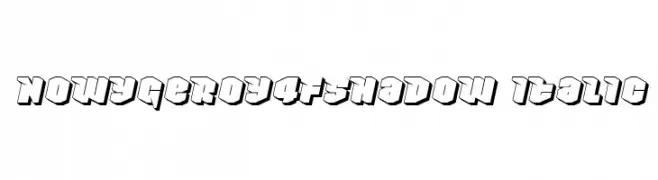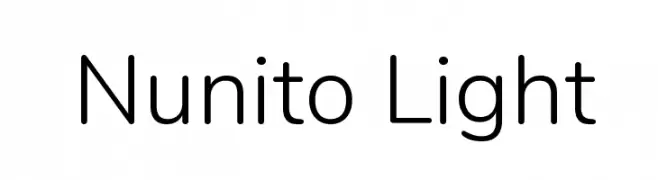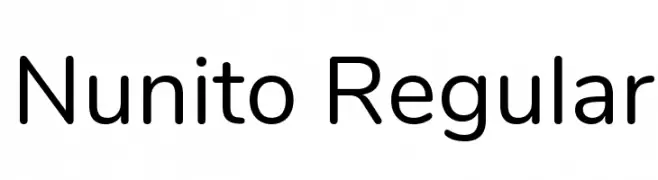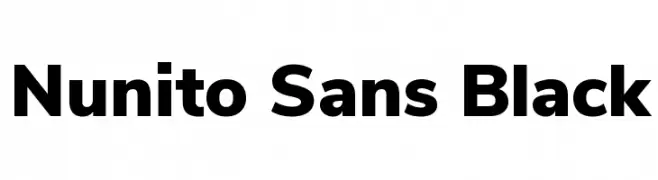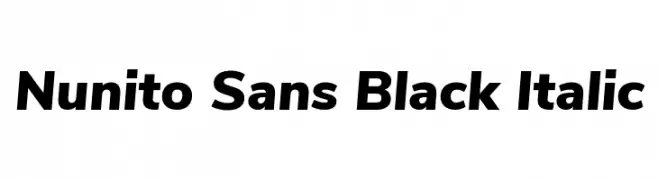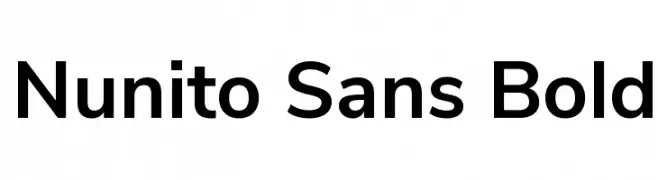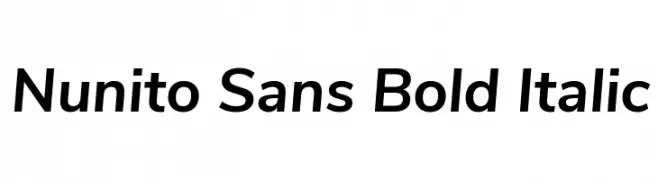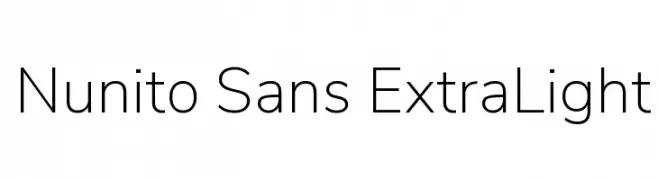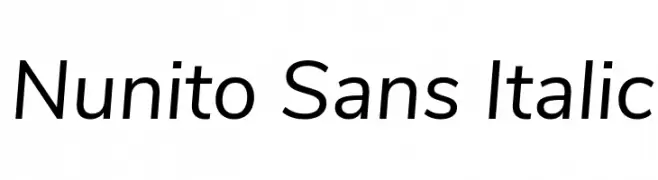
A decorative font inspired by Notre Dame's Gothic architecture.
An Art Nouveau-inspired font with elegant, flowing lines and a modern twist.
A bold, three-dimensional font with shadow effects, combining retro and modern styles.
A bold, three-dimensional font with a shadow effect and italic style, perfect for attention-grabbing designs.
A modern, rounded, and bold font with smooth edges and high legibility.
A bold, italic, modern sans-serif font with rounded, smooth letterforms.
A modern, bold, and italic rounded sans-serif font with medium contrast.
A modern, bold sans-serif font with rounded terminals and excellent readability.
A bold, italic, modern sans-serif font with smooth curves and medium contrast.
A modern, rounded sans-serif font with a friendly and approachable style.
A modern, rounded, extra bold italic font with medium contrast and smooth style.
A modern, clean sans-serif font with uniform stroke width and excellent readability.
A modern, clean sans-serif font with a subtle italic slant and smooth strokes.
A modern, heavy, rounded sans-serif font with an italic slant.
A bold, rounded font with a modern and friendly appearance.
A modern, italic sans-serif font with smooth curves and rounded terminals.
A modern, rounded sans-serif font with a clean and elegant appearance.
A modern, light, and italic sans-serif font with rounded edges.
A modern, rounded sans-serif font with clean lines and balanced spacing.
A bold, modern sans-serif font with clean lines and rounded edges.
A modern, bold, italic sans-serif font with smooth strokes and medium contrast.
A bold, italicized modern font with smooth, consistent strokes.
A modern sans-serif font with rounded terminals and balanced proportions.
A modern, bold, and italic sans-serif font with excellent readability.
A modern sans-serif font with bold, clean lines and excellent readability.
A modern, bold, and italic sans-serif font with a friendly and approachable style.
A clean, modern sans-serif font with a light weight and balanced structure.
A modern, elegant sans-serif font with an extra light weight and subtle italic style.